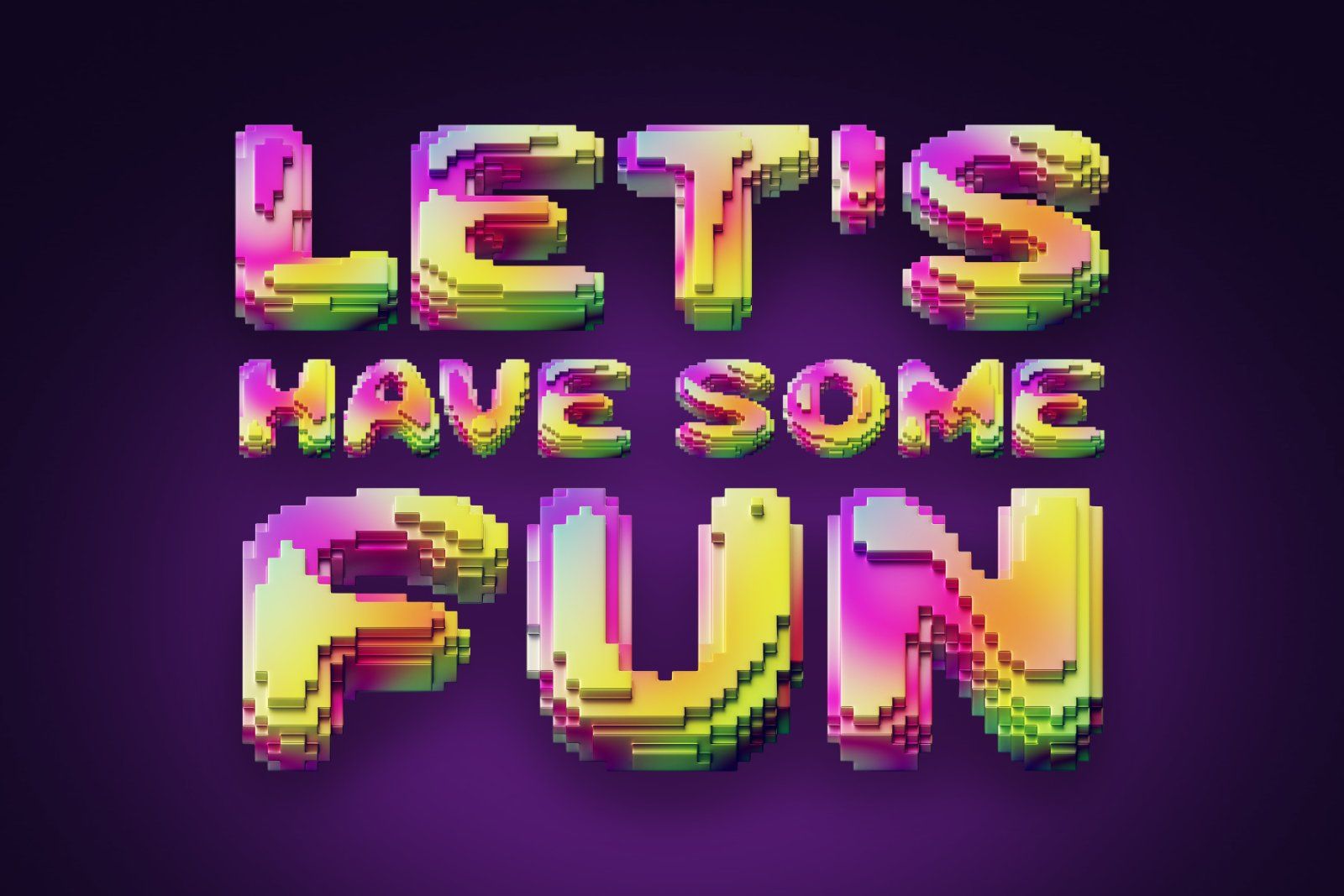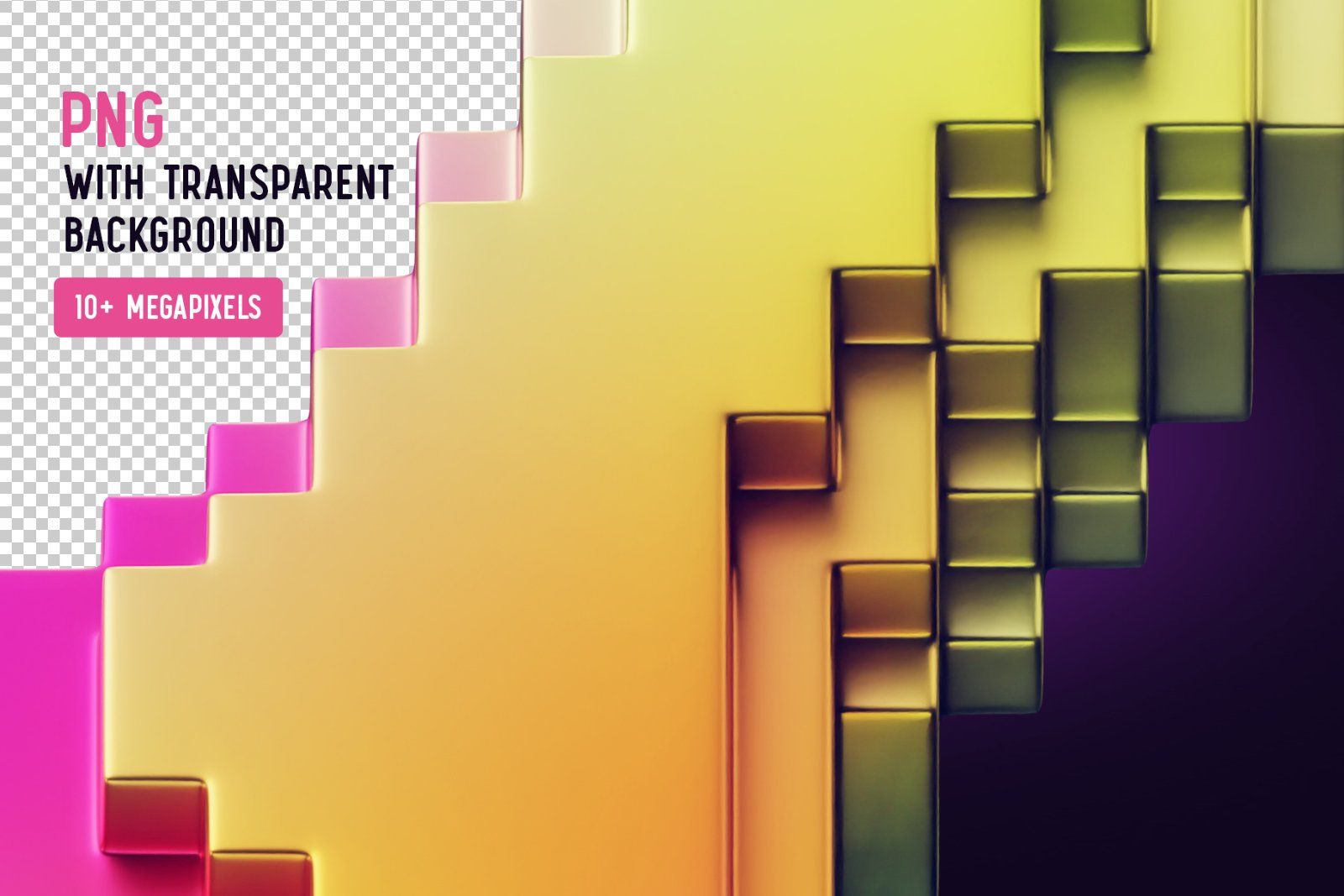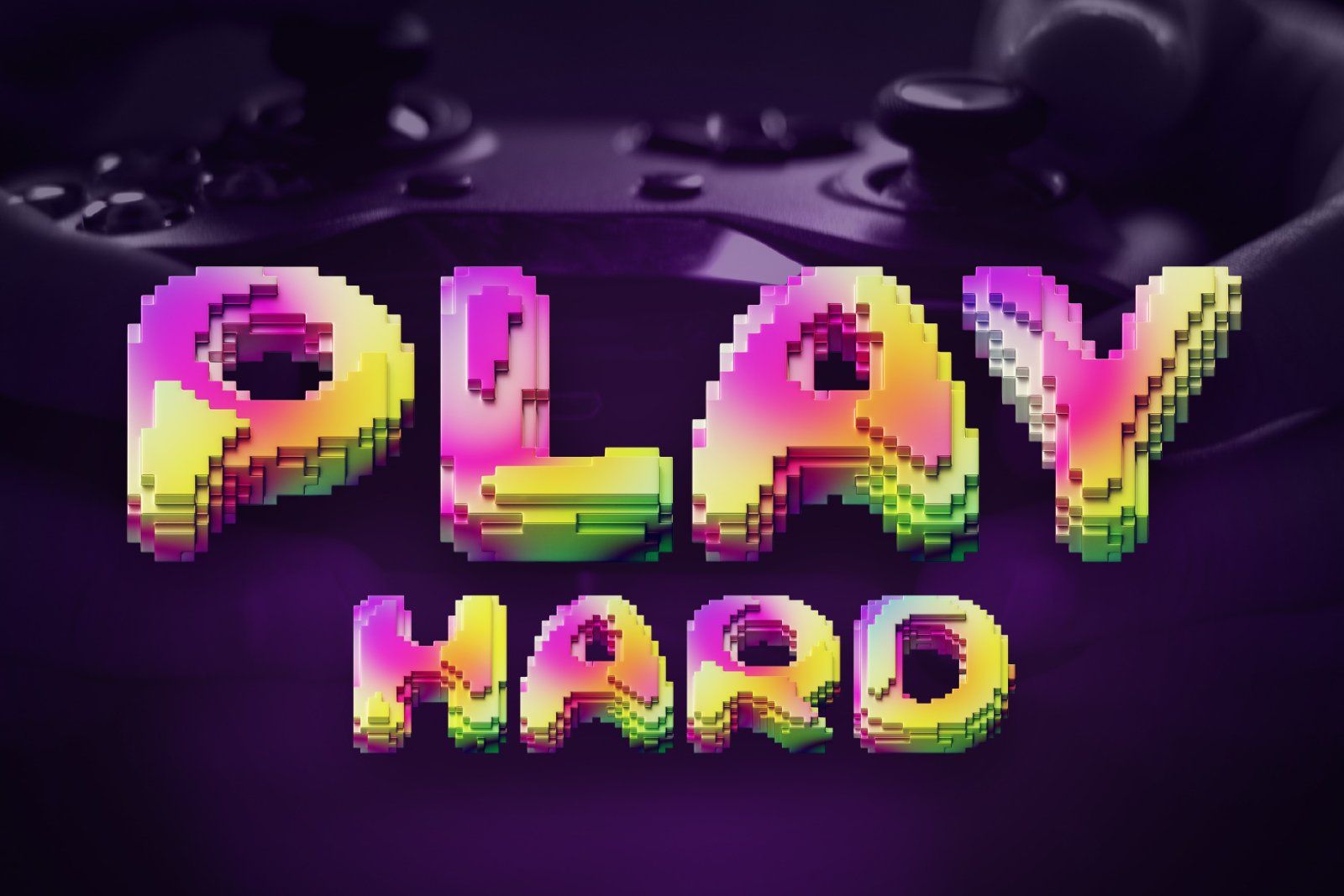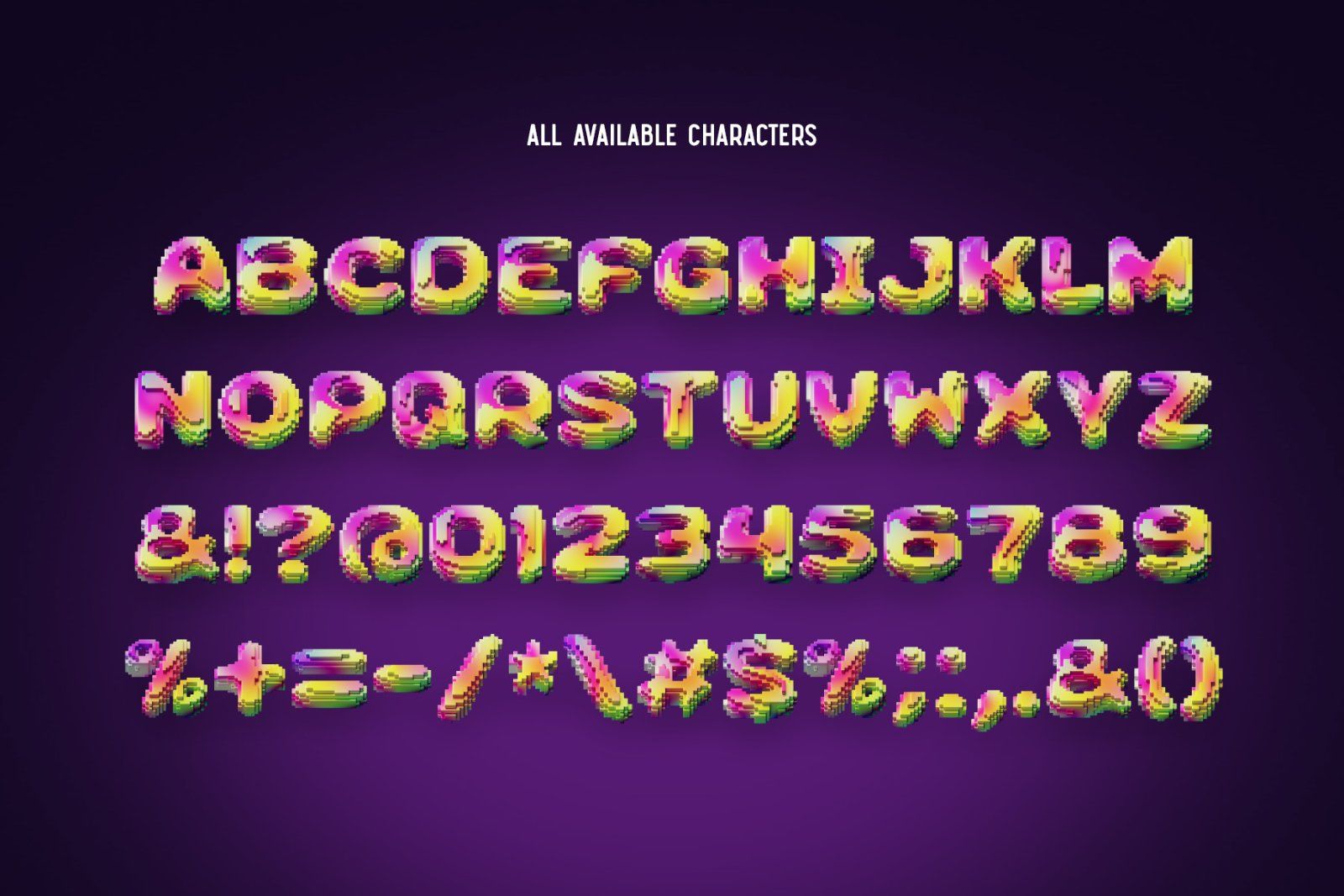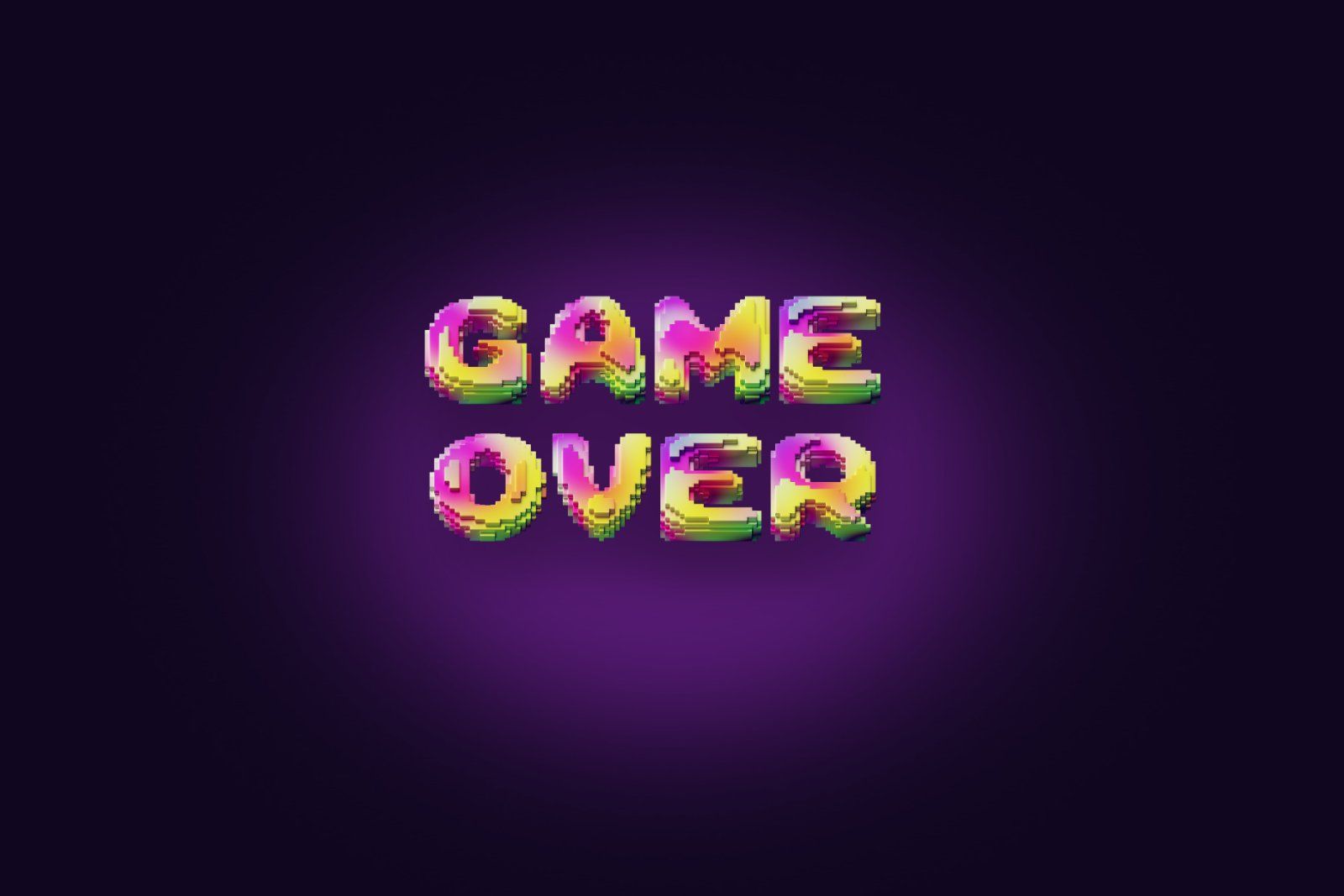
Hello! Presenting a colorful font set Pixcraft. It's a 3d rendered high quality typeface made of hundreds of bright cubic blocks. First of all it's a color bitmap OpenType-SVG font that can be used as a usual OTF font. Also a set of full resolution PNG files with transparent background is included.